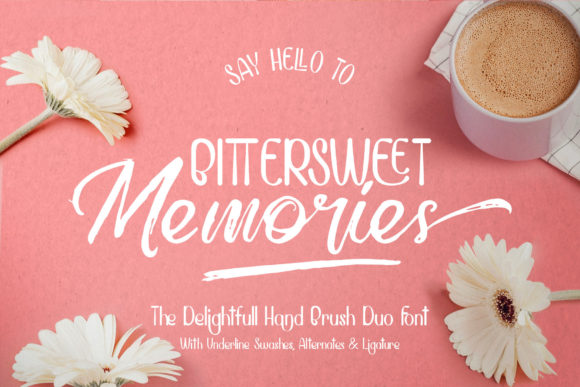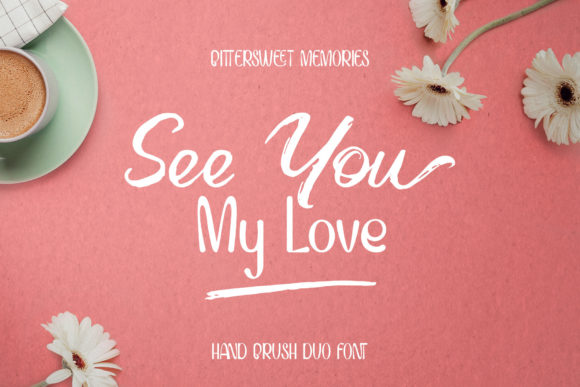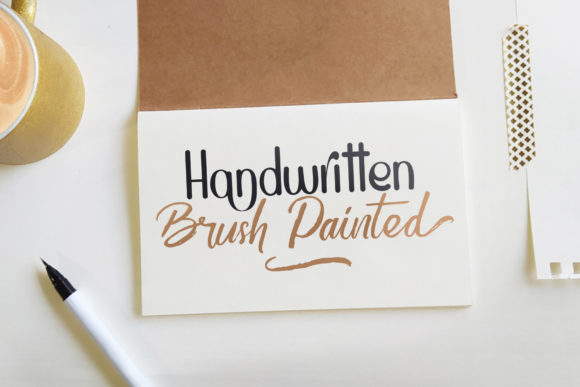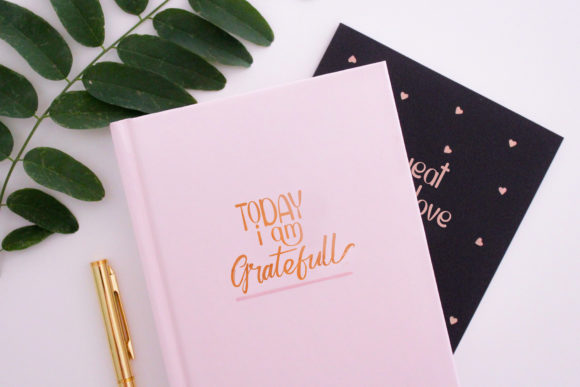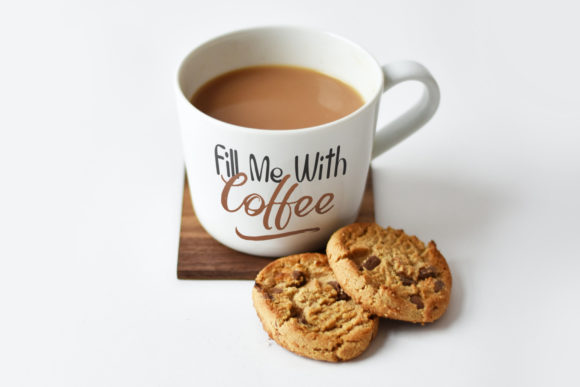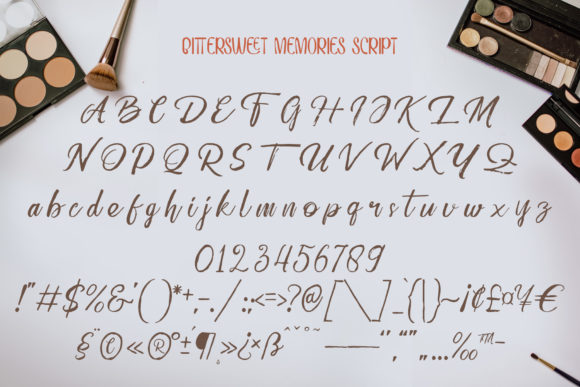
Bittersweet Memories is a lovely duo font (script and display). Add this joyful, friendly and relaxed font to your favorite designs and notice how it makes them stand out. Bittersweet Memories is PUA encoded which means you can access all of the glyphs and swashes with ease!